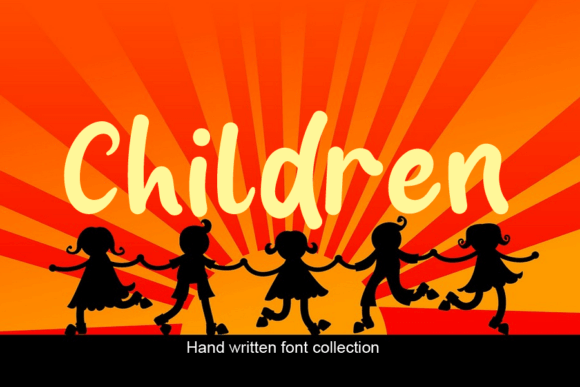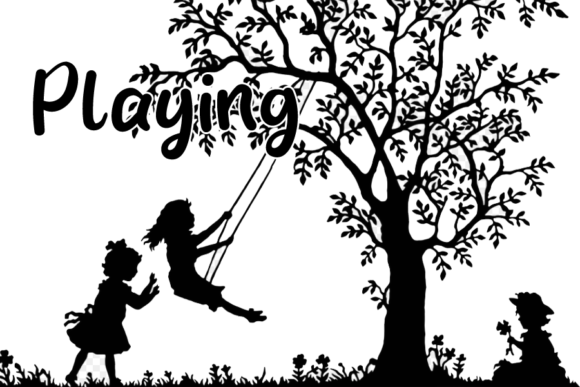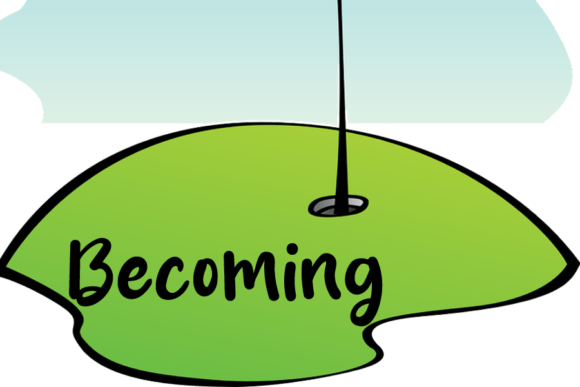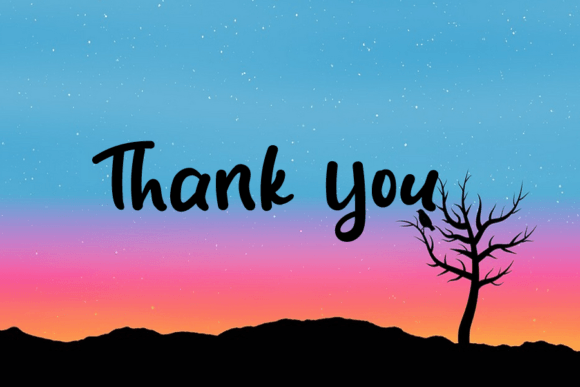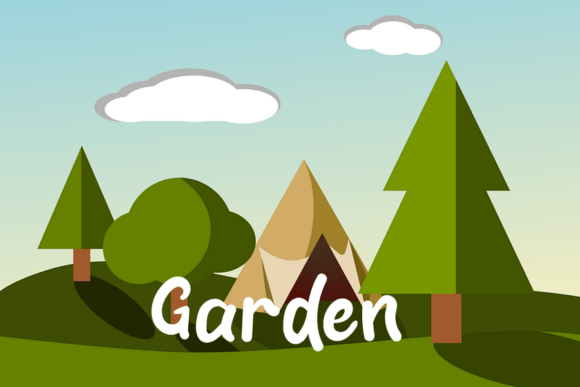
Children Font
About Children Font
“Children” is a script typeface that boasts a simple yet modern style, making it an excellent choice for a variety of design applications. Its clean and contemporary appearance lends itself well to logos, book or movie title designs, fashion brands, magazines, clothing, quotes, and a wide range of creative projects.
The appeal of “Children” lies in its simplicity and modernity. Its clean lines and straightforward design create a versatile and approachable visual experience, making it suitable for projects that require a contemporary touch.
One of the standout qualities of “Children” is its adaptability. Whether you’re using it to craft a memorable logo, design eye-catching titles, establish a strong brand identity, or enhance various other creative projects, “Children” seamlessly integrates into your creative vision.
The versatility of “Children” makes it a valuable asset in your design toolkit, whether you’re a professional designer or someone passionate about creative endeavors.
In summary, “Children” is a versatile script typeface that brings simplicity and modernity to your projects. Its clean and contemporary style makes it suitable for a wide range of creative applications, allowing you to infuse a touch of modern elegance into your logos, titles, branding materials, and more. Embrace the versatility of “Children” and watch your creative projects shine with its simple and modern script.